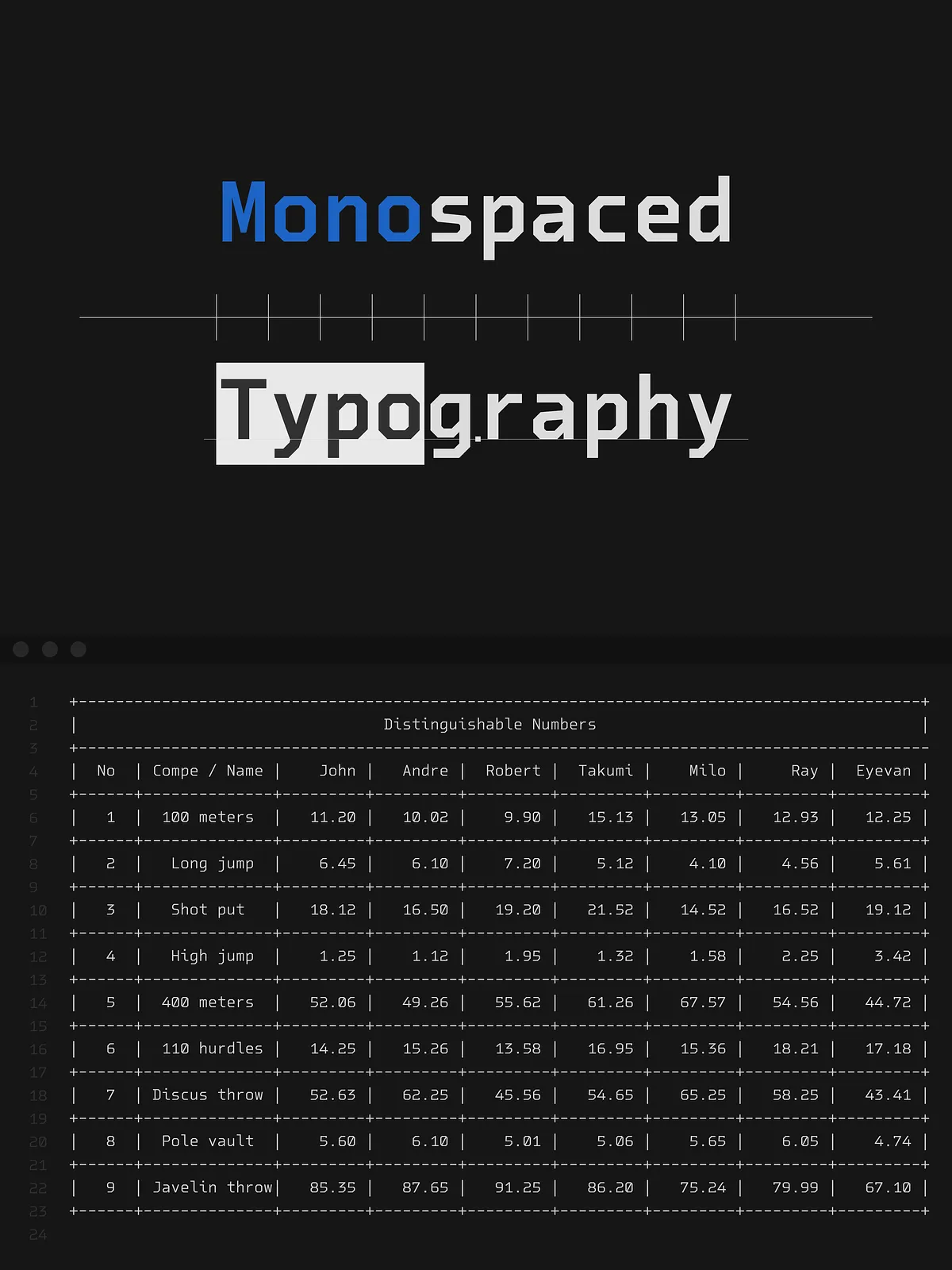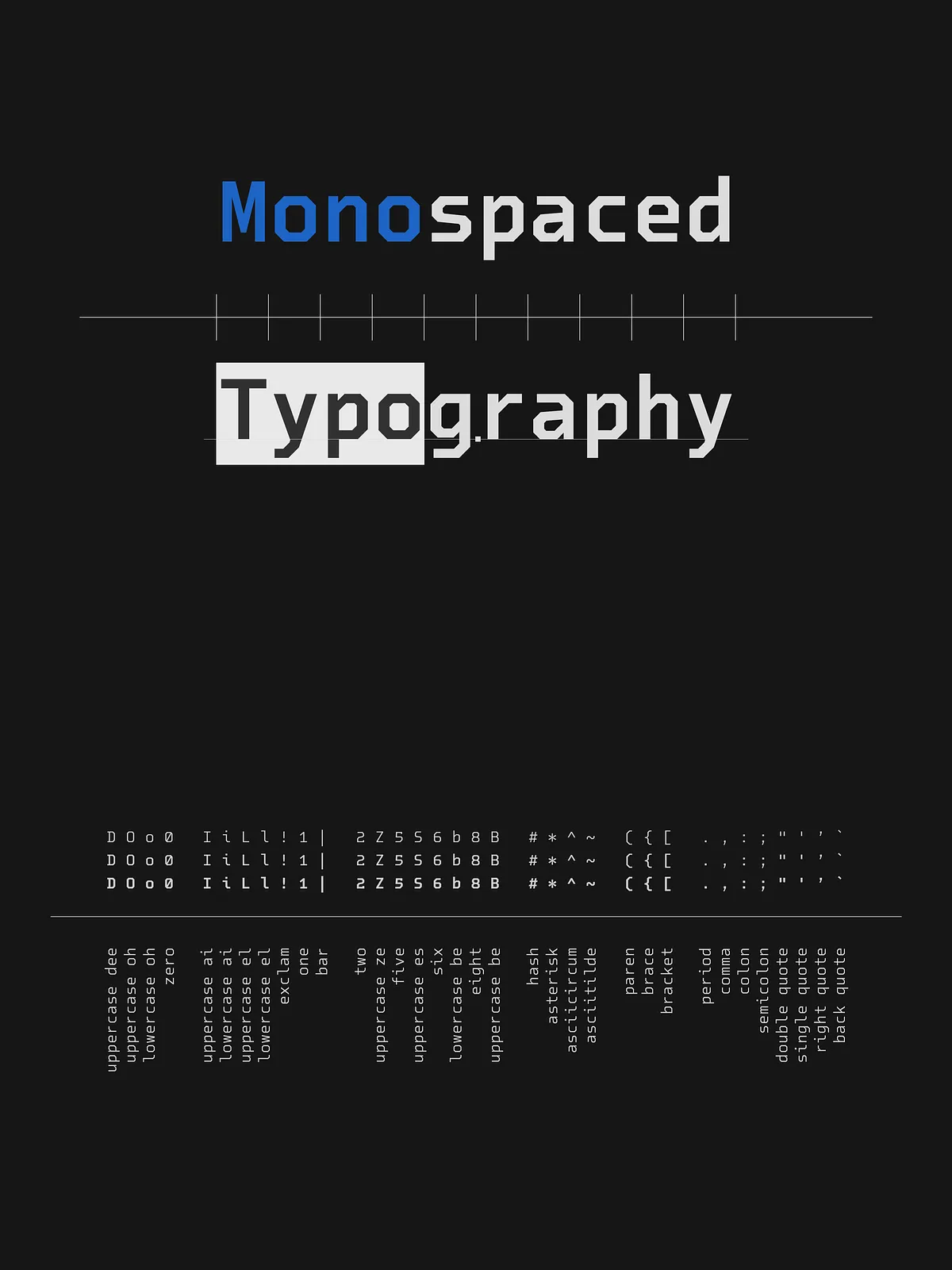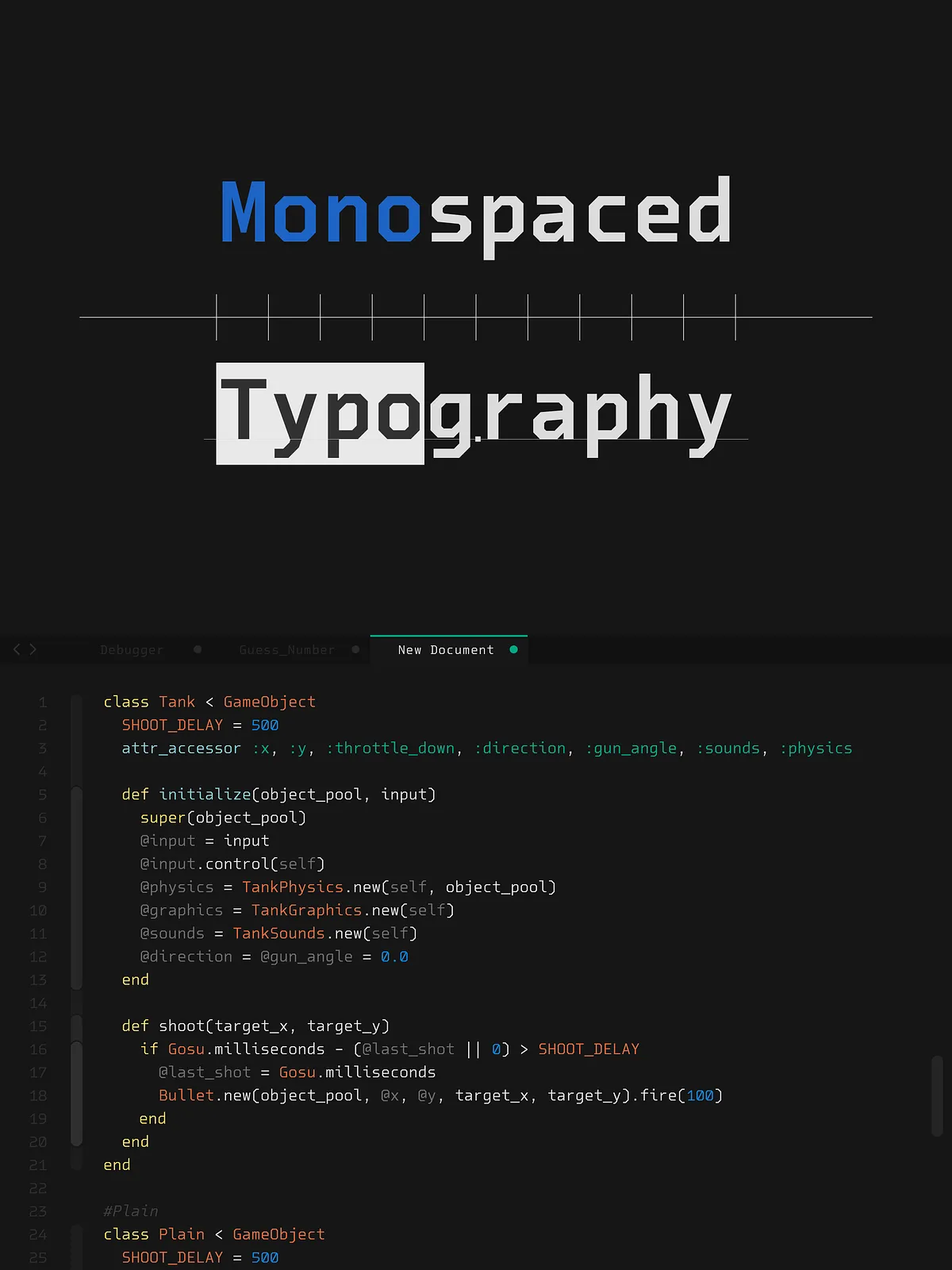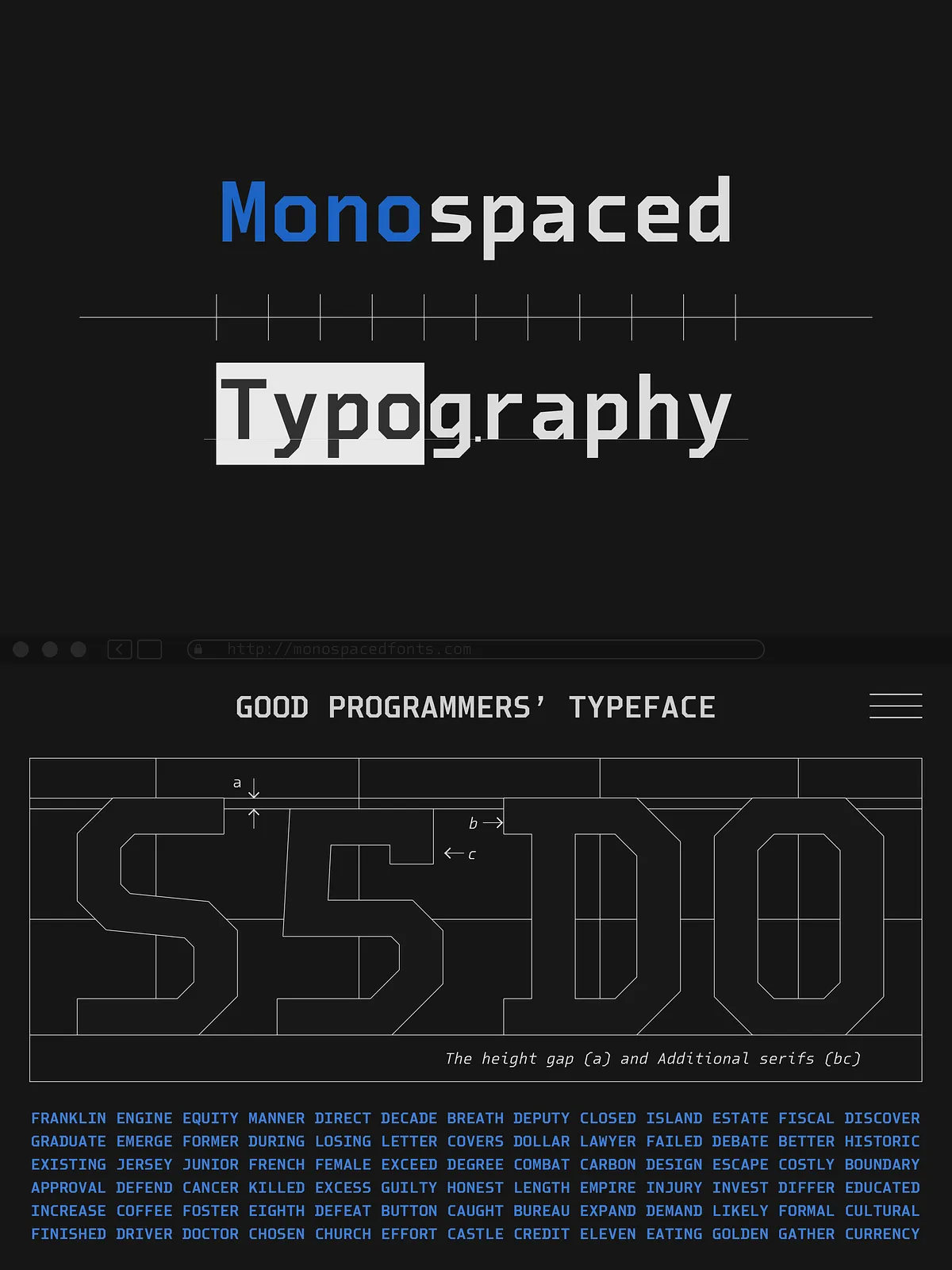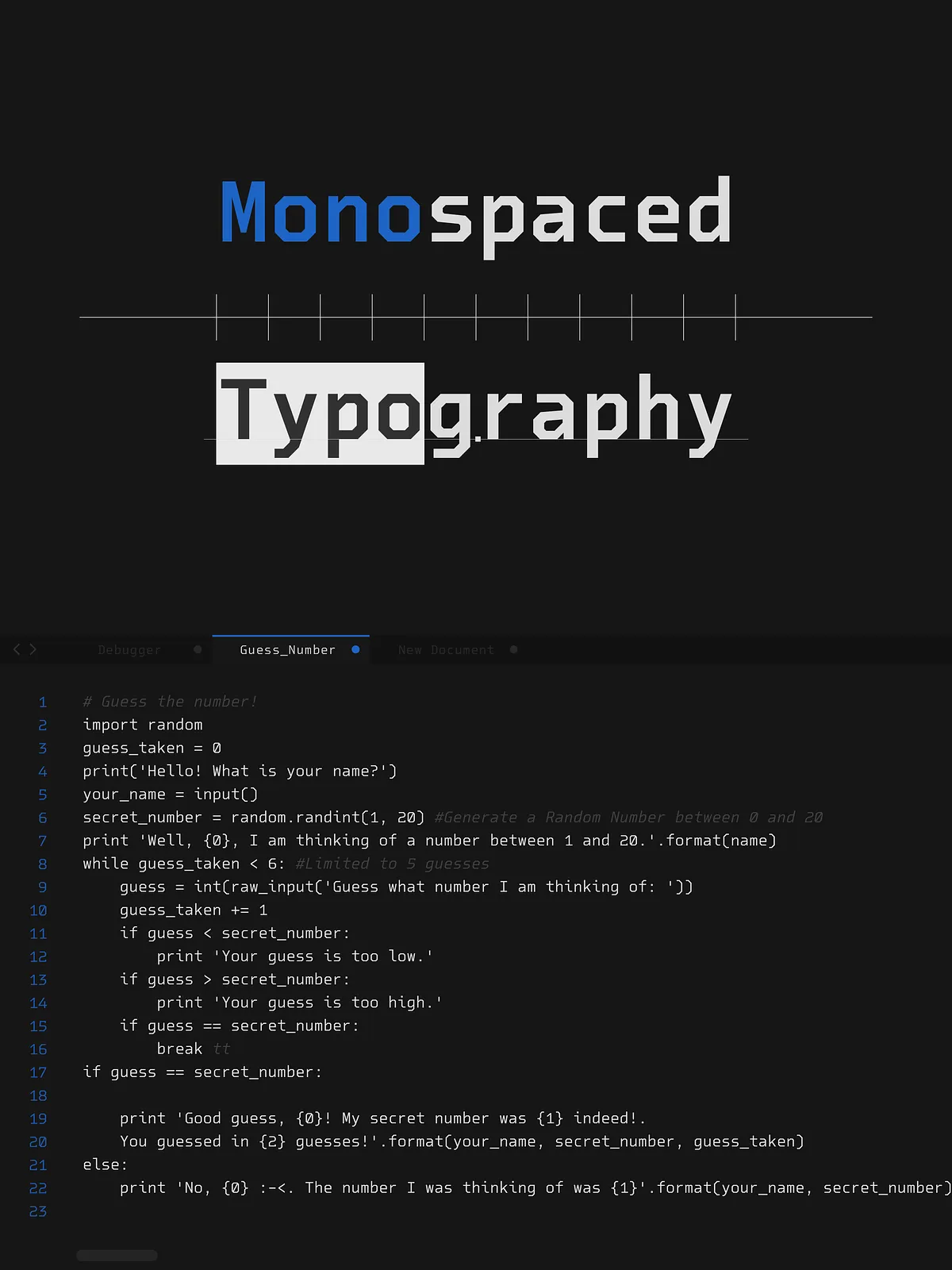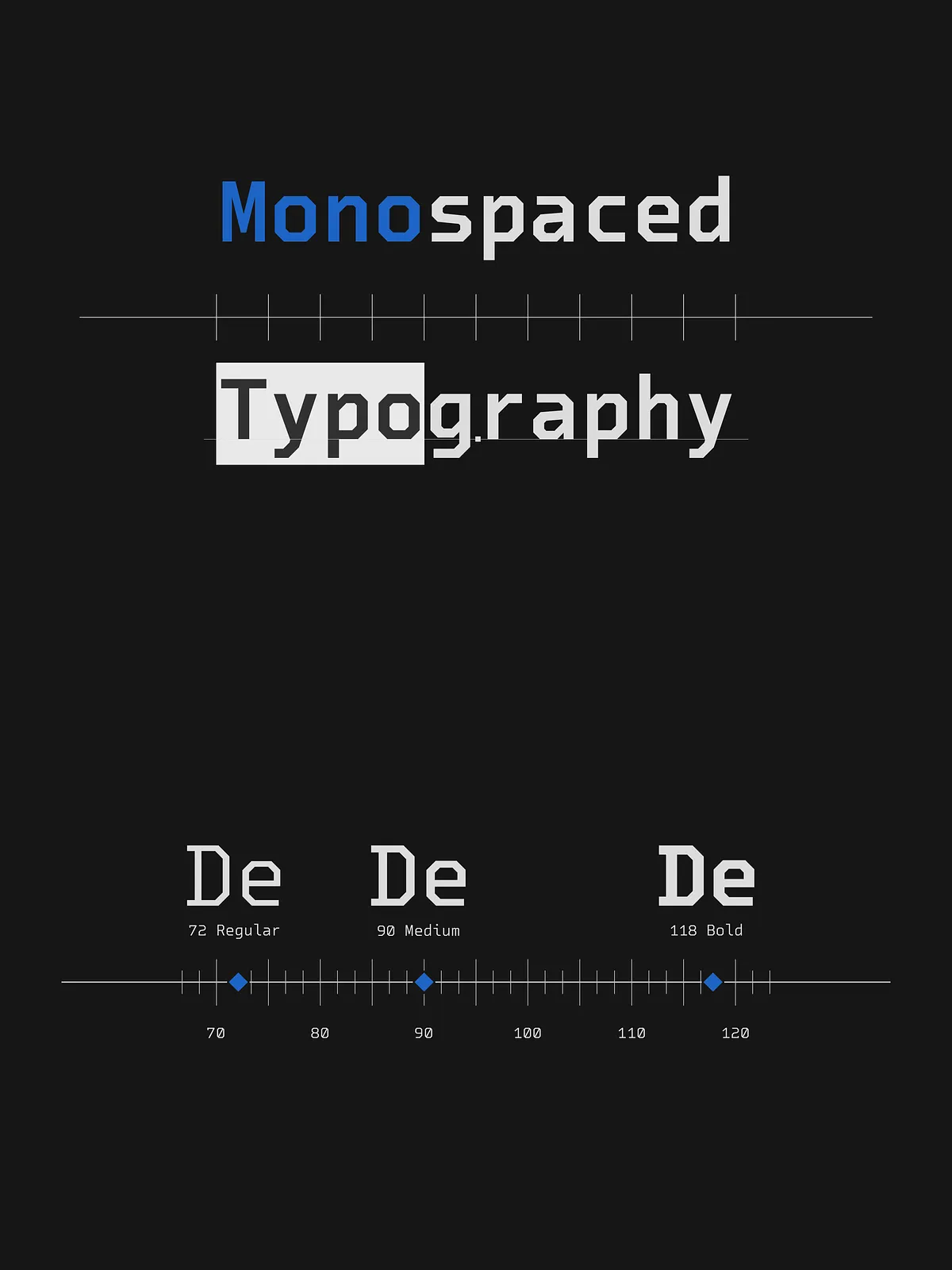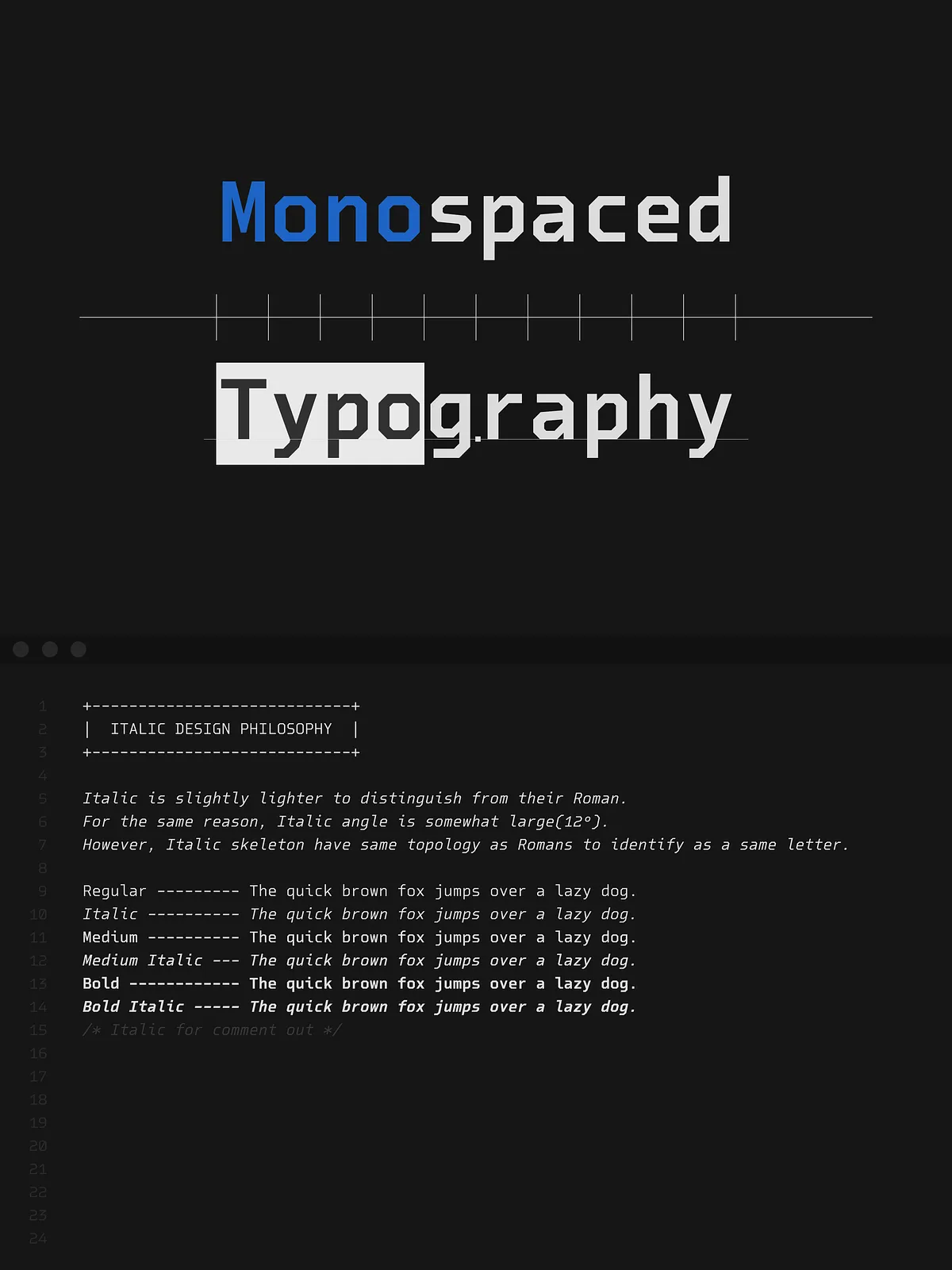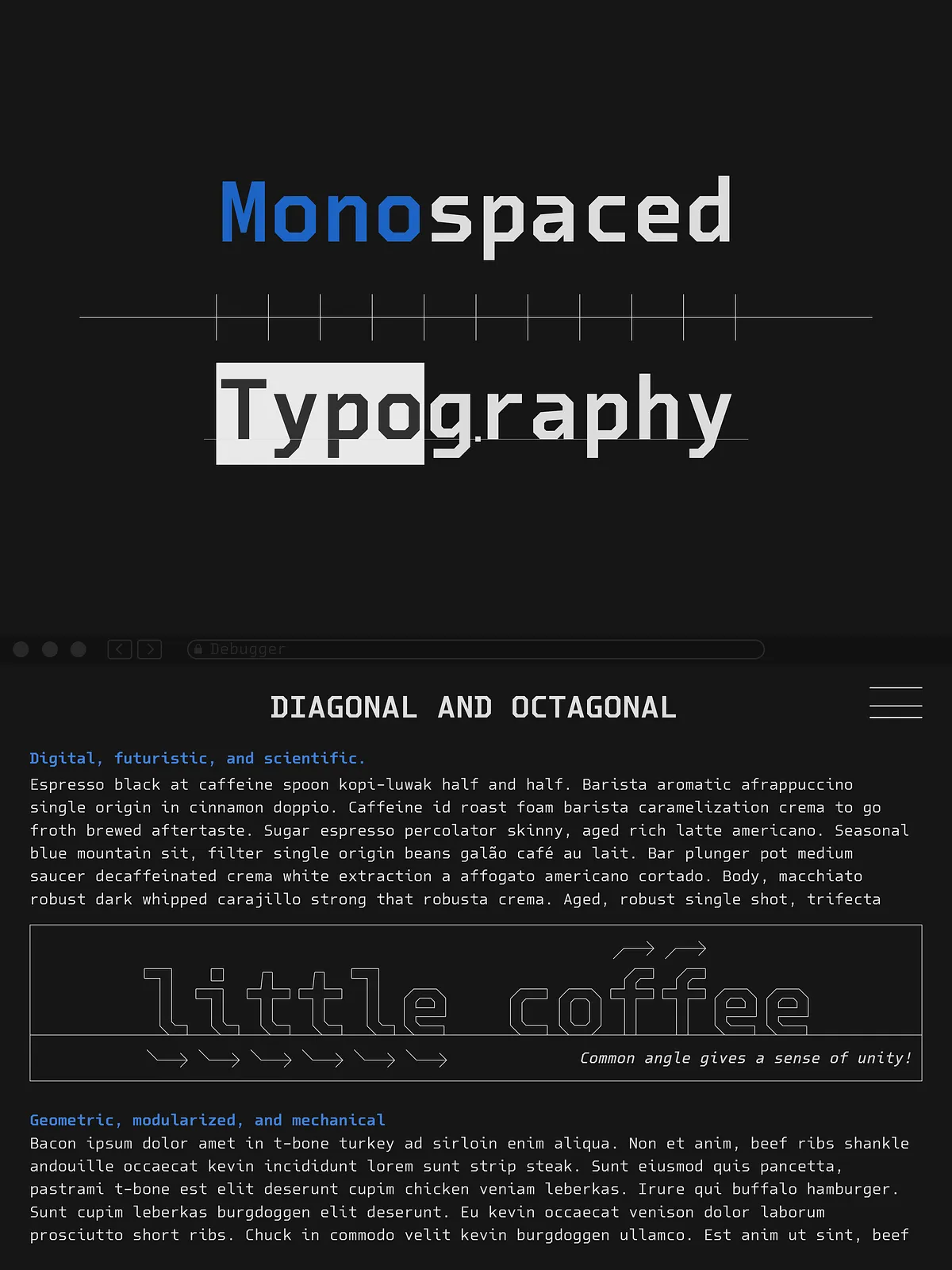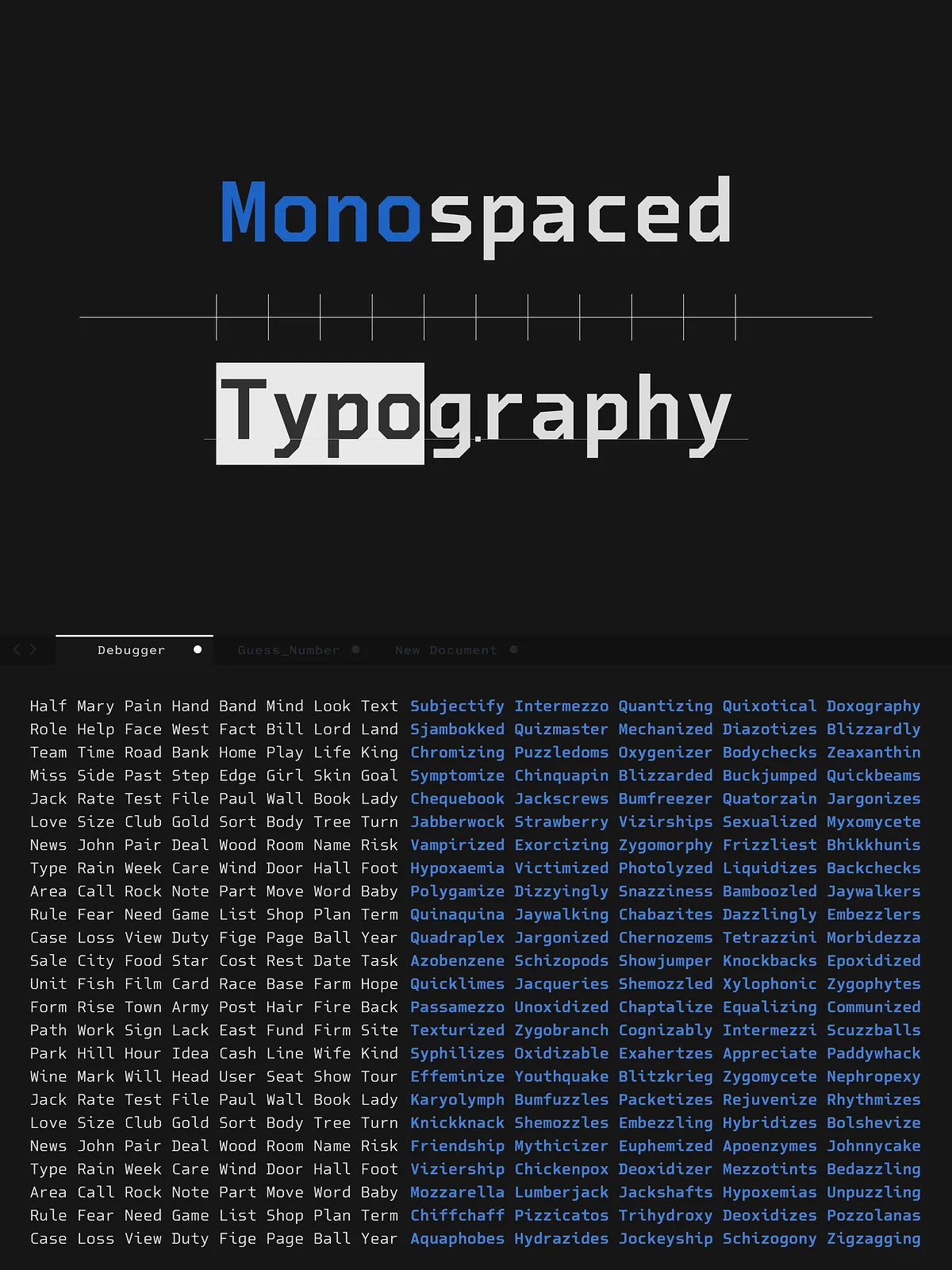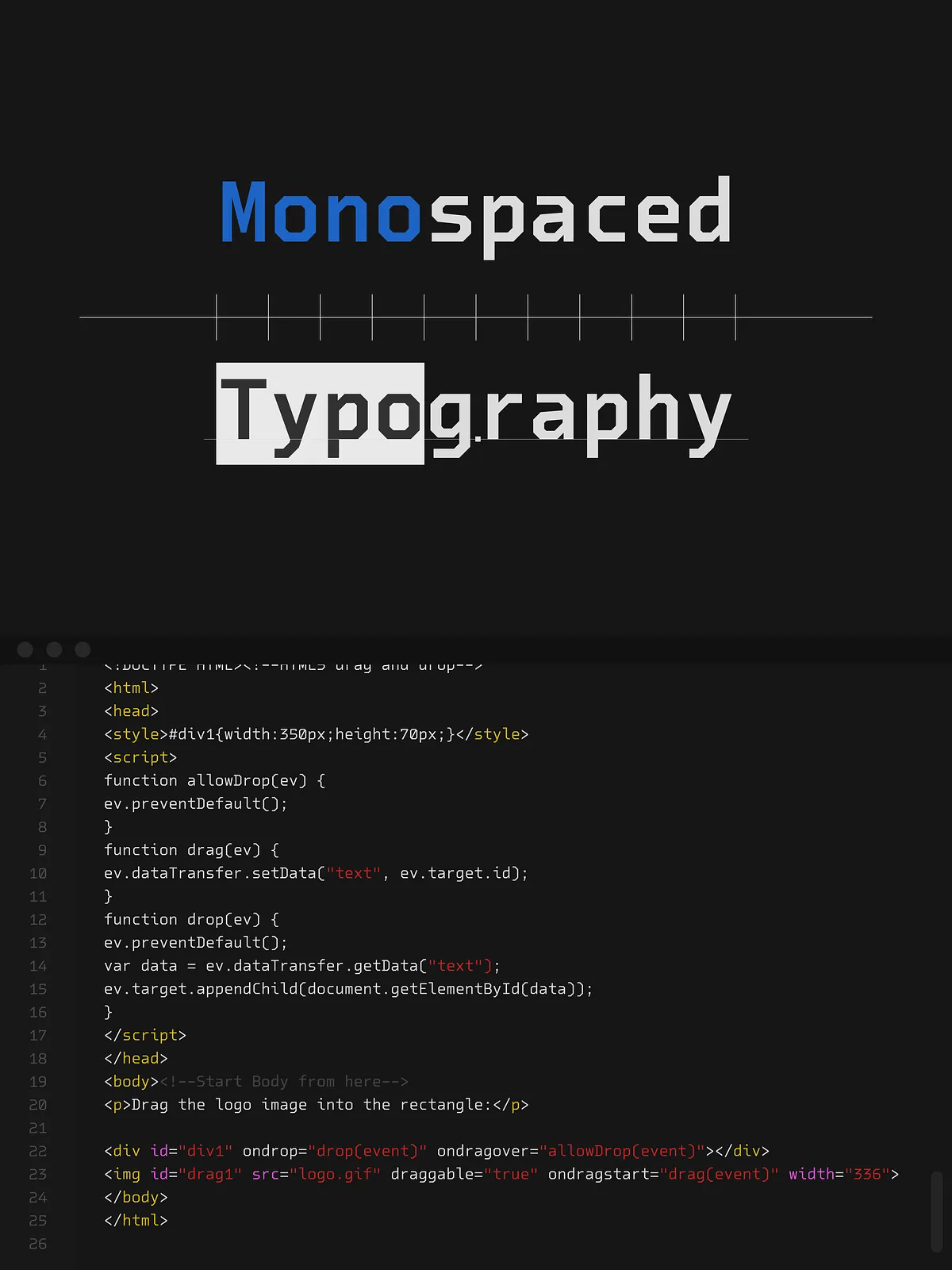
Debugger is engineered to meet the needs of the modern development environment where every character counts. This monospaced font family prioritizes clarity with careful attention to character distinction, ensuring that commonly confused glyphs like zero and uppercase O, one and uppercase I, and two and Z are instantly recognizable. This precision minimizes errors and improves the speed of coding, debugging, and data presentations in fast-paced workflows.
Its design is rooted in functionality wrapped in a sci-fi aesthetic, making Debugger perfect for developers, programmers, and data specialists who demand both performance and style.
Innovative Mechanical Italics for Clarity
Distinctive slant without compromising readability
Unlike traditional cursive italics that can blur character recognition in programming contexts, Debugger’s italic styles employ a mechanical slant. This choice enhances the font’s differentiating power while keeping each character sharp and structured. The italic styles are slightly lighter than their Roman counterparts, adding visual interest without sacrificing legibility—a critical factor for coding and technical documentation.
Unique Octagonal and Diagonal Construction
The definitive futuristic and digital aesthetic
Debugger’s standout feature is its octagonal and diagonal design approach. This gives the font a distinctively cutting-edge, sci-fi feel that resonates across all characters. The consistent geometric elements forged across the entire character set generate strong visual harmony and uniformity, making Debugger not just a tool but a statement for tech-focused projects.
This geometric cohesion also empowers designers to build clean, futuristic user interfaces, code editors, and data visualizations that look as good as they perform.
Multilingual Support for Global Reach
Latin-based language coverage for worldwide usability
Debugger supports almost all Latin-based languages, ensuring that it fulfills the needs of diverse development teams and creative professionals worldwide. This broad language support makes Debugger a versatile asset, whether you’re coding international software or designing multilingual technical publications.
Its integration-ready structure ensures smooth implementation in various development environments and digital platforms.
Step into the Future of Monospaced Typography
Bold, experimental, and functional
Debugger is more than just a font; it’s a forward-looking experiment in monospaced typography. Combining futuristic design elements with high functionality, it redefines what developers and designers can expect from a monospaced typeface.
Whether you are creating modern code editors, futuristic interfaces, or detailed data displays, Debugger delivers clarity, style, and efficiency in every character.